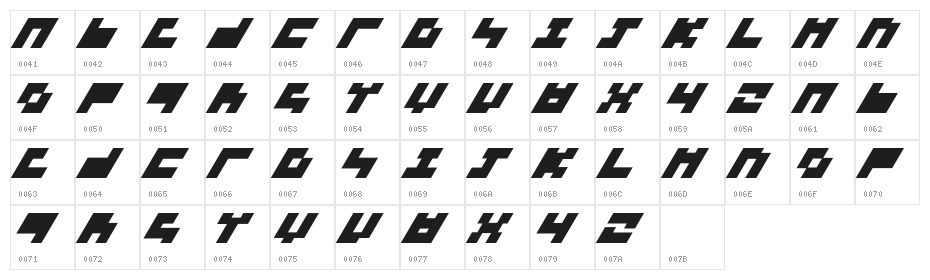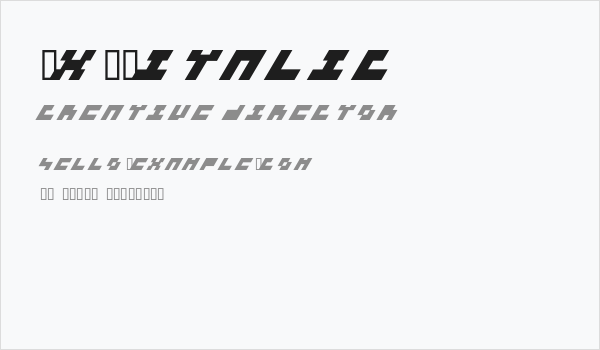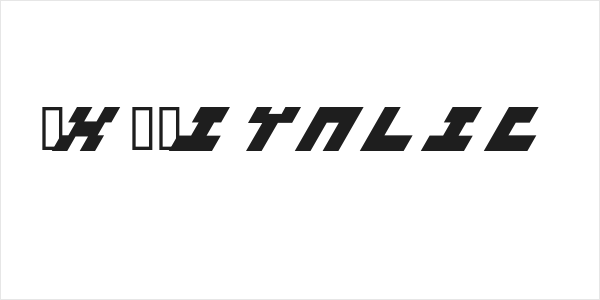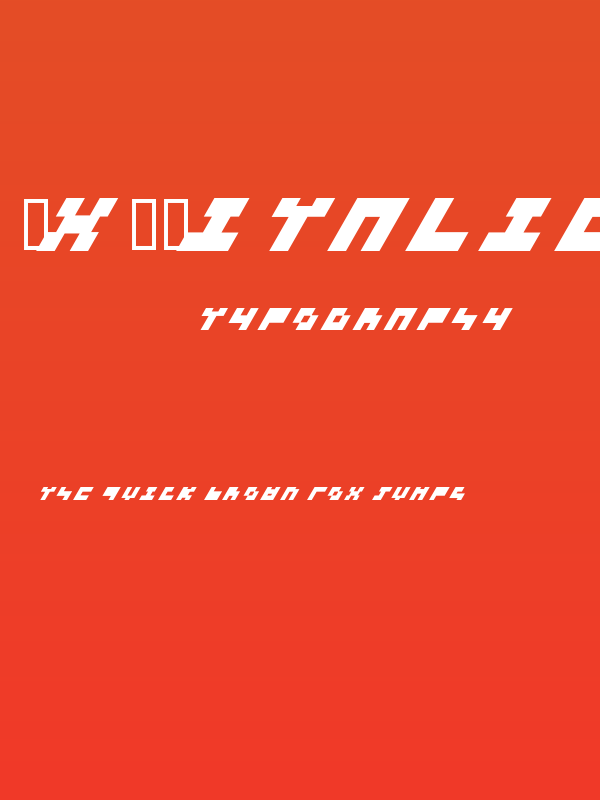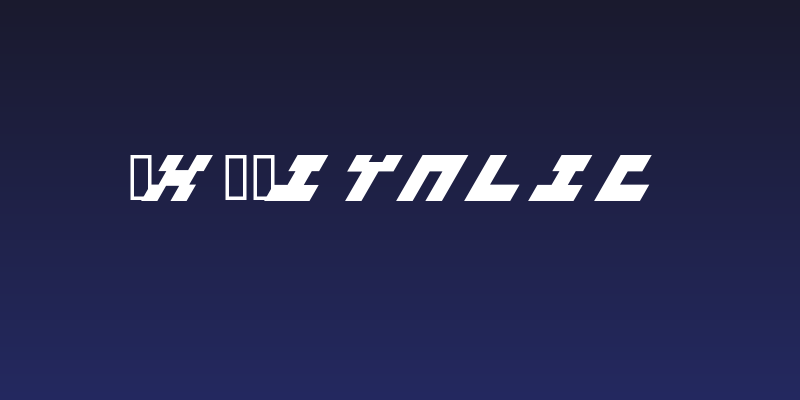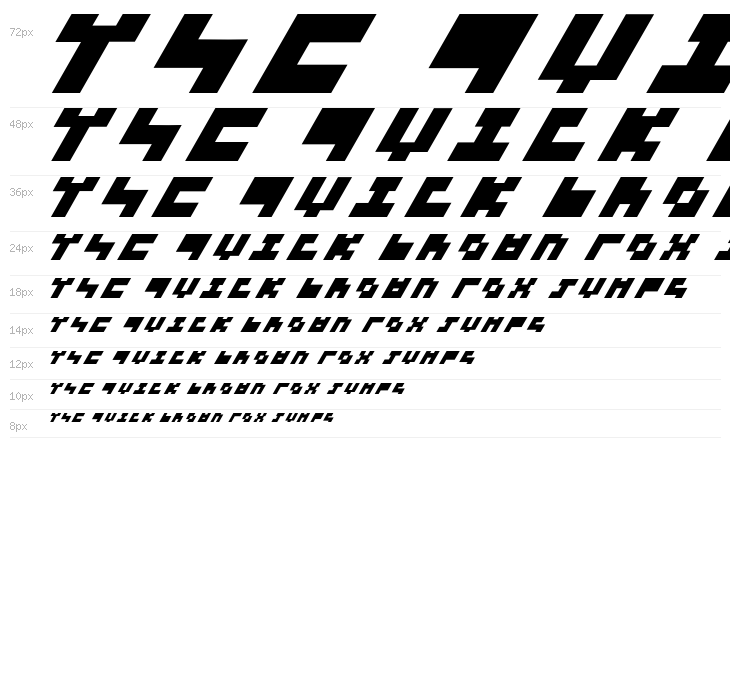
3x3-italic Font
3x3-italic Description
This font features a bold, geometric design with a distinct italic slant, giving it a dynamic and futuristic appearance. The characters are constructed with sharp angles and straight lines, creating a sense of movement and energy. The uppercase and lowercase letters maintain a consistent style, with the lowercase being slightly more compact. The numerals and special characters follow the same angular theme, ensuring uniformity across the font. The overall design is striking and modern, making it suitable for attention-grabbing applications.
| Proposed Projects | Ideal for sci-fi themed projects, video game titles, tech branding, and modern posters. |